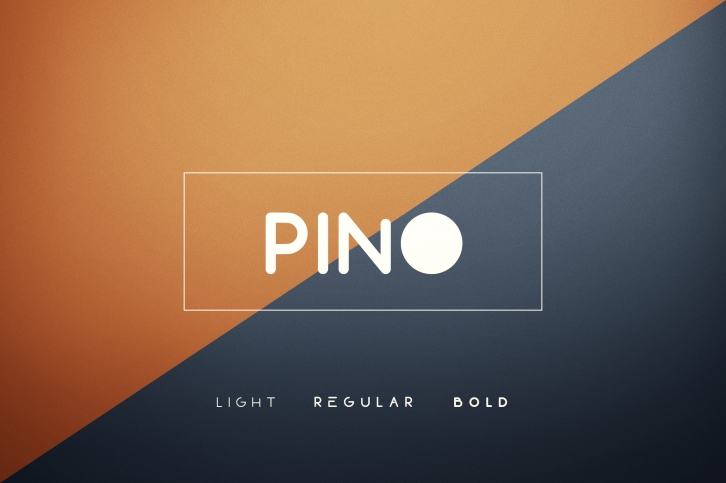
Pino Font Download
Pino is a great font that was designed by VPcreativeshop. Imagine the amount of combinations you can create using this font! The archive is 19.78 MB and it was released on June 10, 2017. Pino looks beautiful on wedding invitations, greeting cards, logos, posters, labels, t-shirt designs, logos, business cards and is perfect for use in ink or watercolor works, fashion, magazines, packaging and food menus, children's books and more!